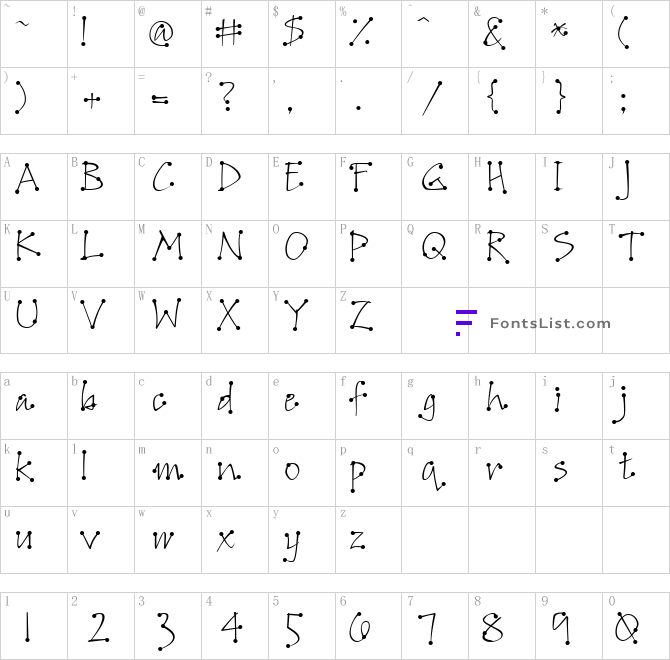
- Font Name:Accent Dot Light
Accent-Dot-Light.ttf is a very beautiful artistic font, Accent-Dot-Light.ttf is widely used in the design and printing of various books and pictures,Accent-Dot-Light.ttf has a strong visual impact,Accent-Dot-Light.ttf is a commonly used font in newspapers, magazines and books, and is used in posters, e-commerce Poster design, store design, logo design, font design and other fields.Accent-Dot-Light.